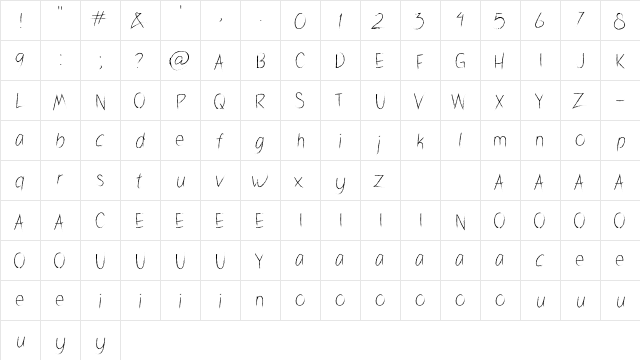
Valibrush Regular
Design Context for Valibrush Typeface
Valibrush flows with the natural rhythm of handwritten lettering, making it ideal for designs that call for warmth and personal expression.
Font Pairing: Combine Valibrush with a simple geometric sans for maximum contrast — the tension between flowing curves and clean structure is a classic typographic pairing.
Pro Tip: Pair Valibrush with a clean sans-serif for supporting text. The contrast between fluid script and geometric structure creates an elegant typographic hierarchy.